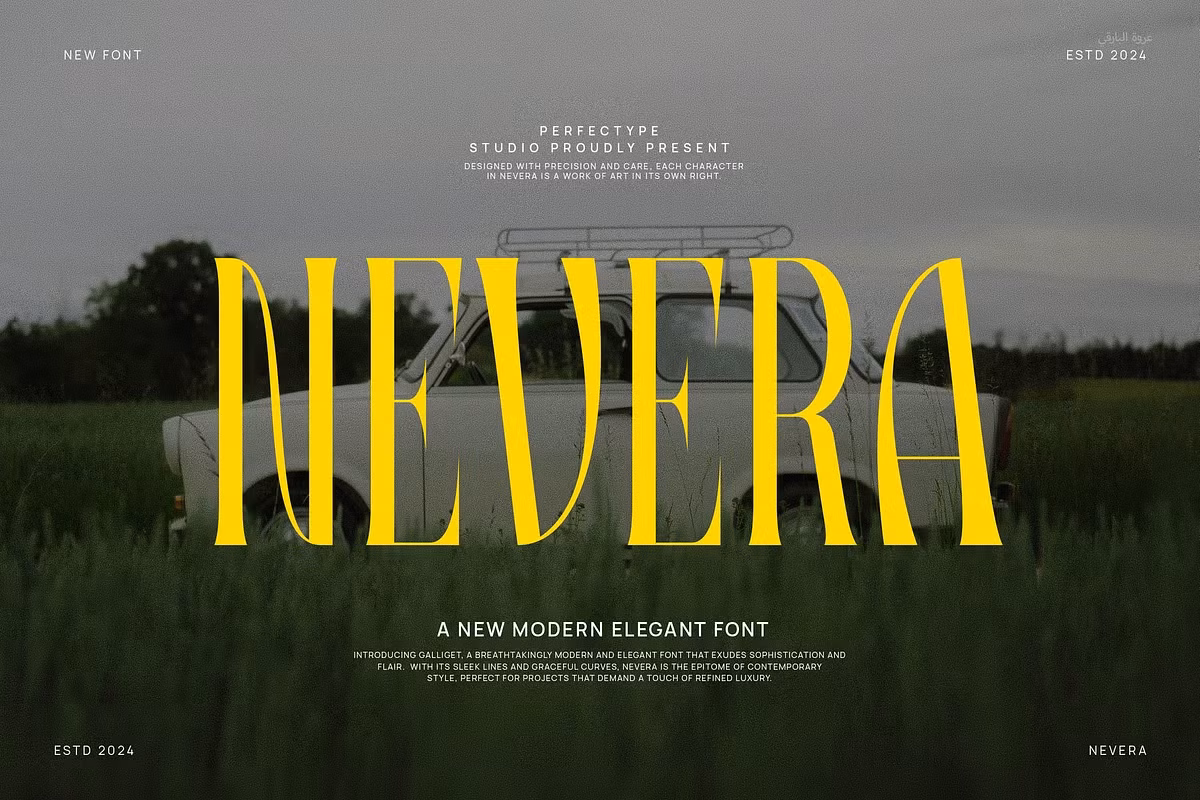
Nevera Vintage Serif Font Free Download
Nevera Vintage Serif Font Free Download is a bold and timeless typeface that combines vintage charm with modern design. Featuring sharp serifs and intricate details, this font is perfect for creating logos, branding, posters, and invitations that require a classic yet contemporary feel. The vintage elements of this font make it ideal for projects that evoke nostalgia, while its clean and structured design ensures readability and style. Whether you're designing a retro brand, a vintage event invitation, or a creative campaign, Nevera Vintage Serif Font Free Download lets you explore its elegant style in personal projects before purchasing a commercial license. Add sophistication and a touch of history to your designs with this beautifully crafted vintage serif font.